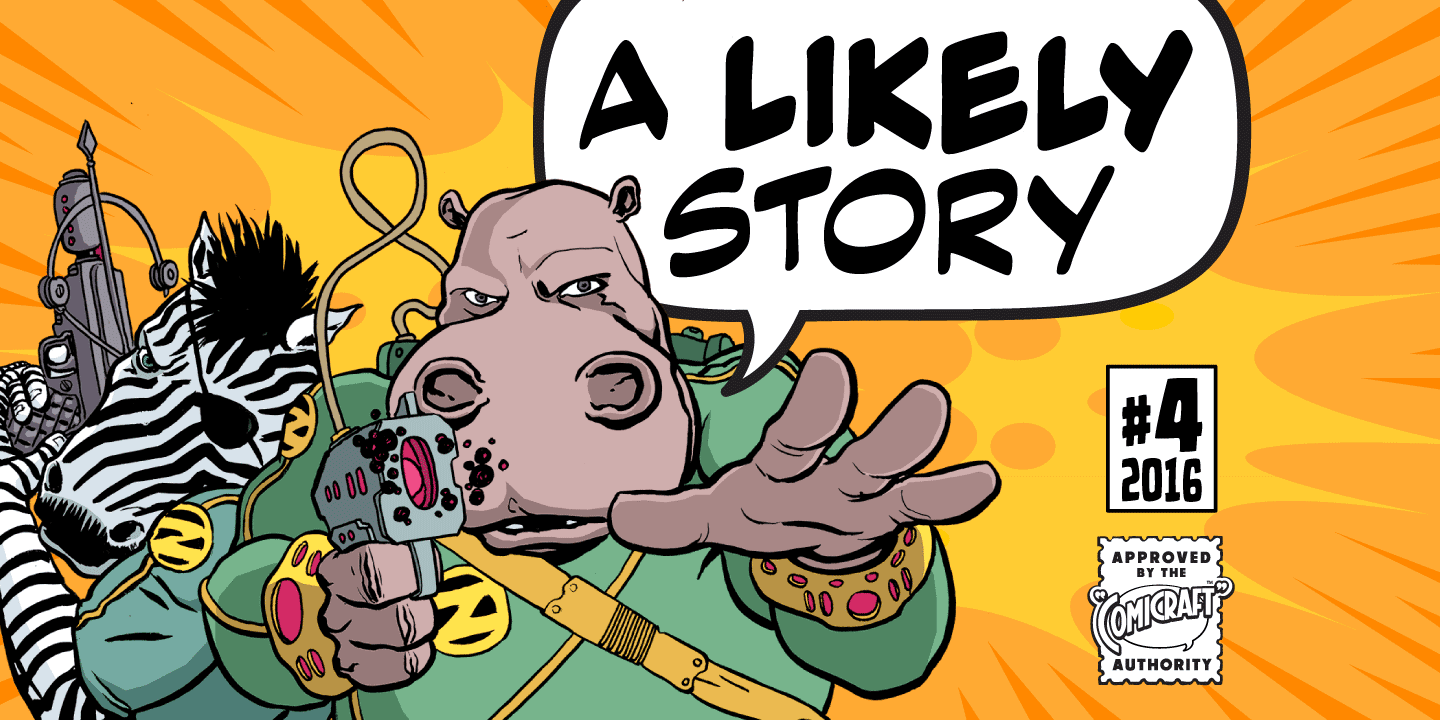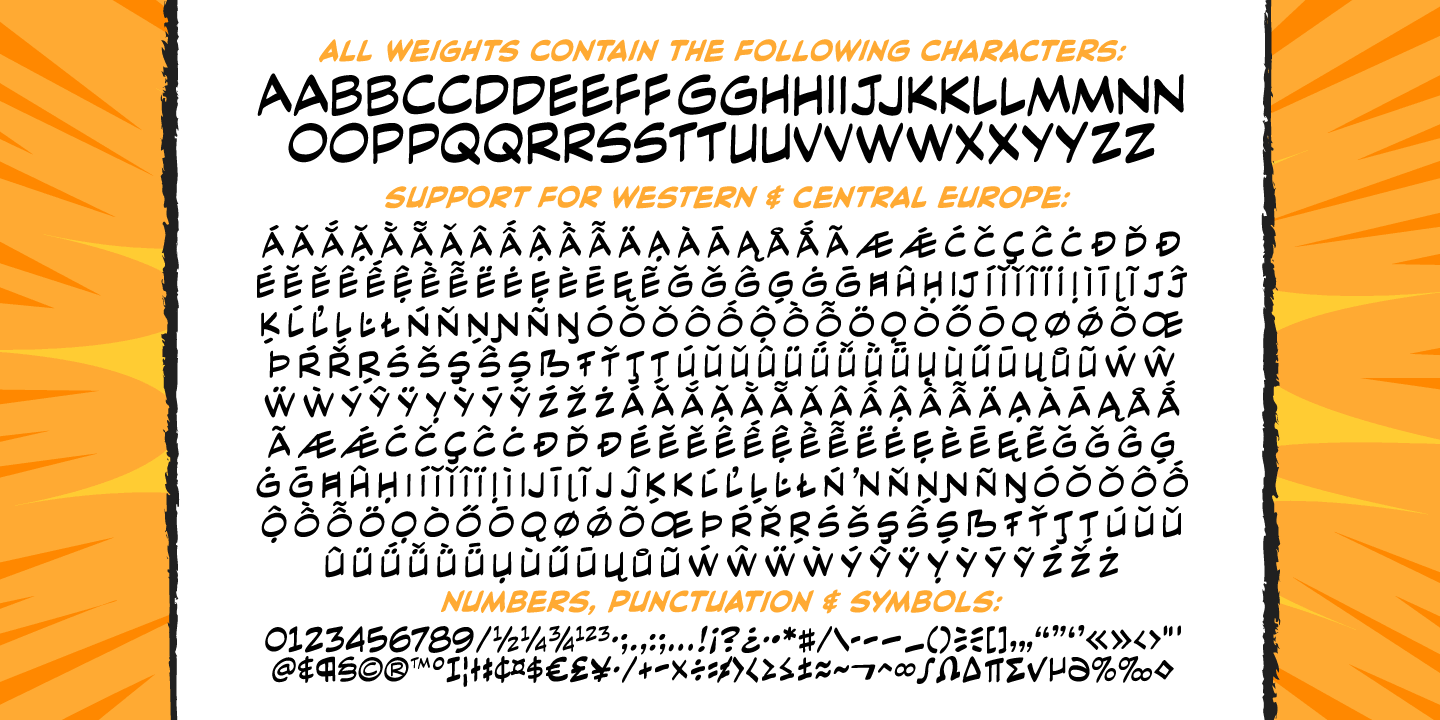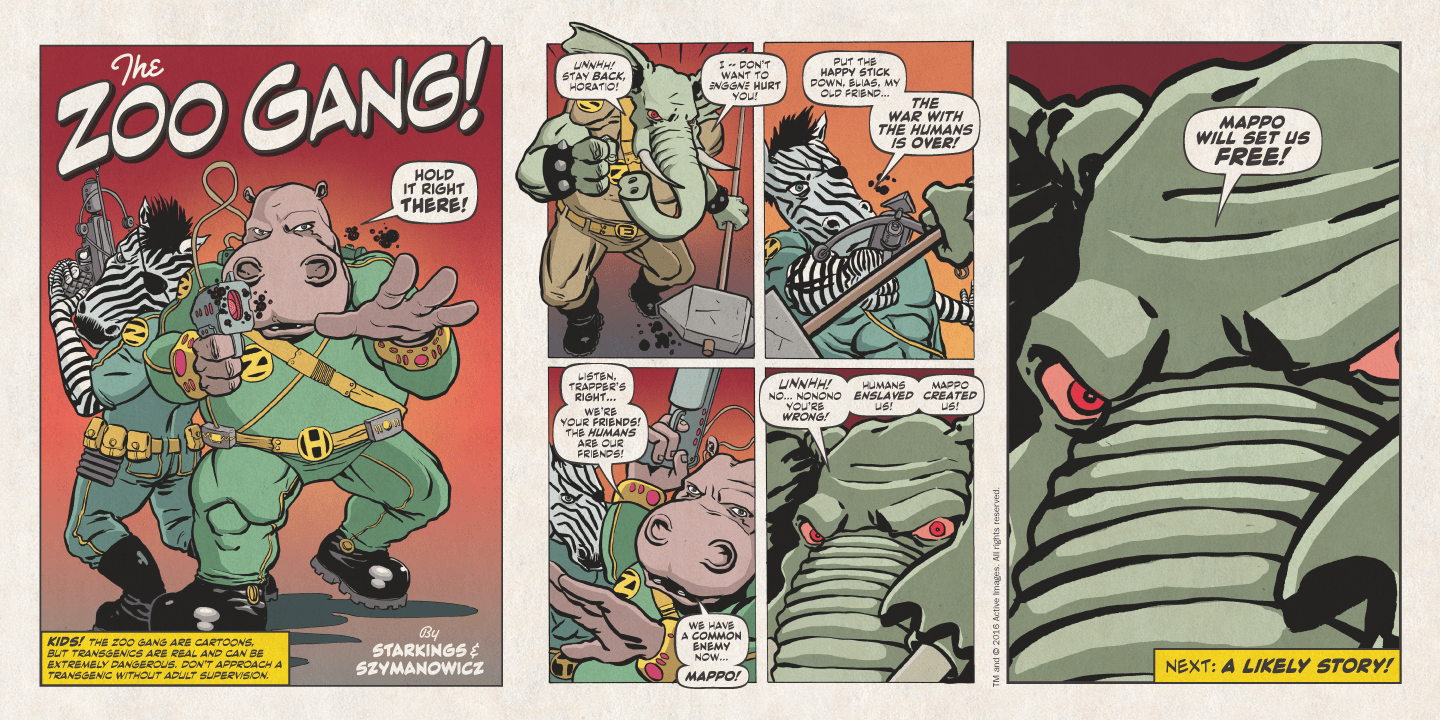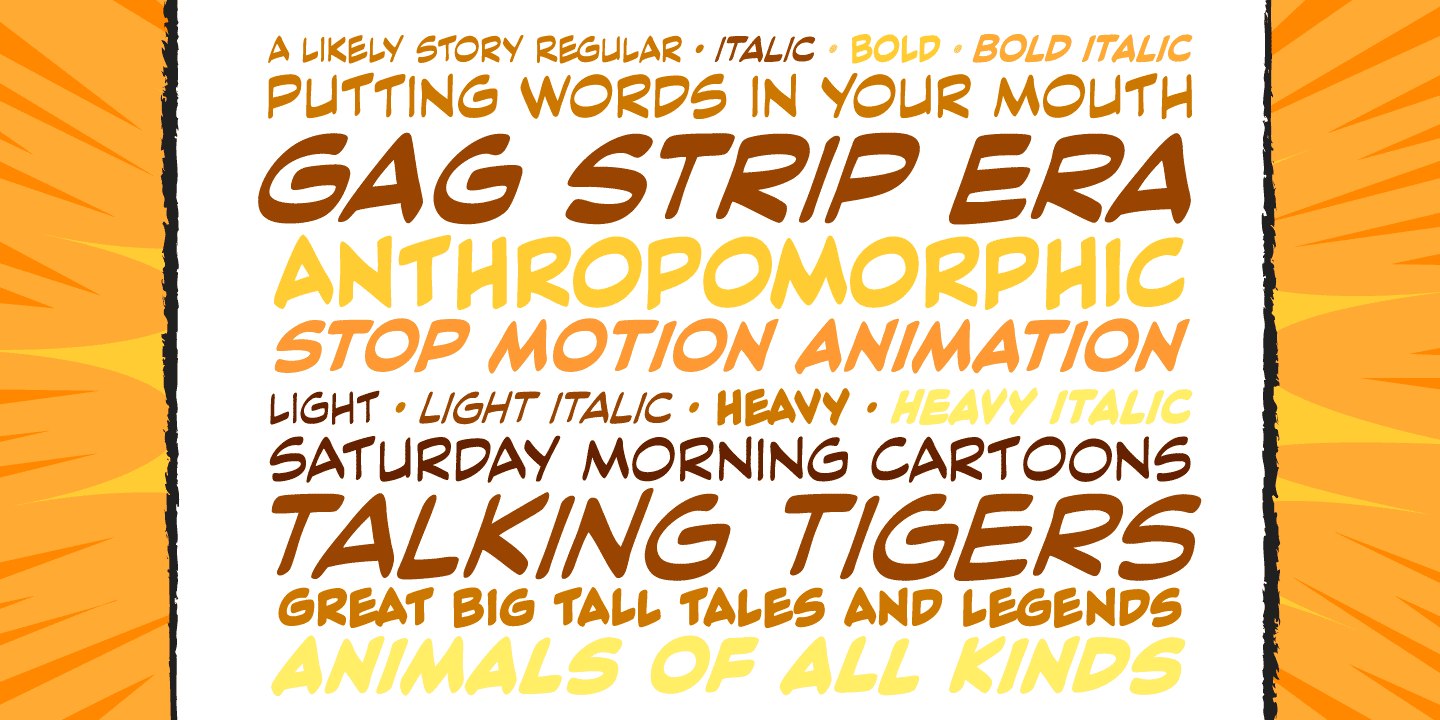
A Likely Story
Finally an animated alphabet with a tall tale to tell -- perfectly suited to putting words in the mouths of mutts, talking tigers and anthropomorphic animal characters of all kinds.
The precise thick and thin pen strokes of these eight versatile weights are well suited to gag strips, classic cartoons and maybe even that internet meme you've been thinking about for weeks!